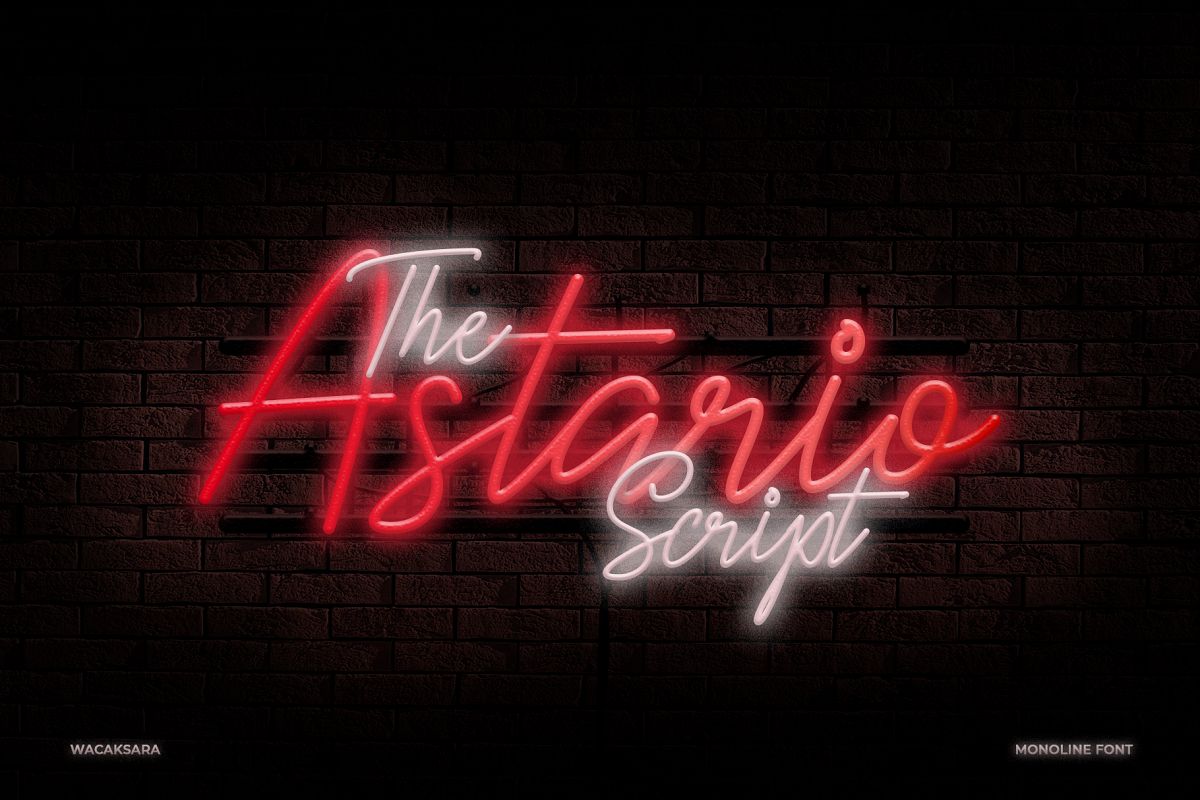
Astario
Introducing our new font called Astario was inspired by neon lights sign — a contemporary take on retro stylings, this font will bring your designs to life with an infusion of boisterous nostalgia.
Great for use in labels, branding, packaging, or text overlay to any background picture, Astario will make a gorgeous addition to your type library!